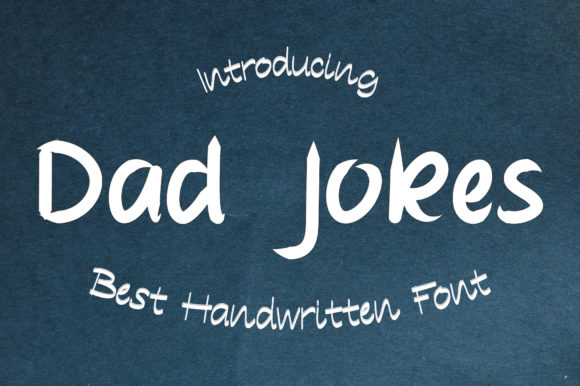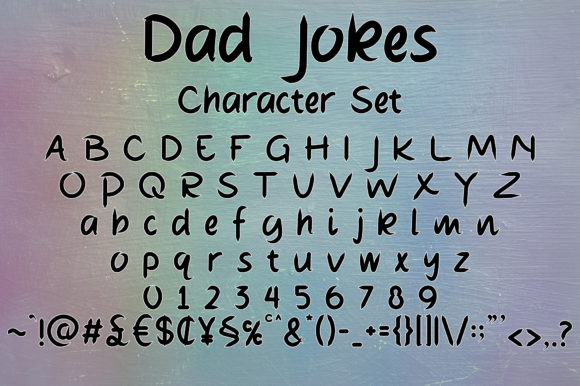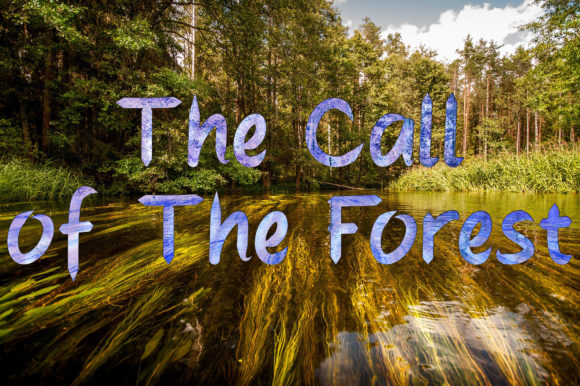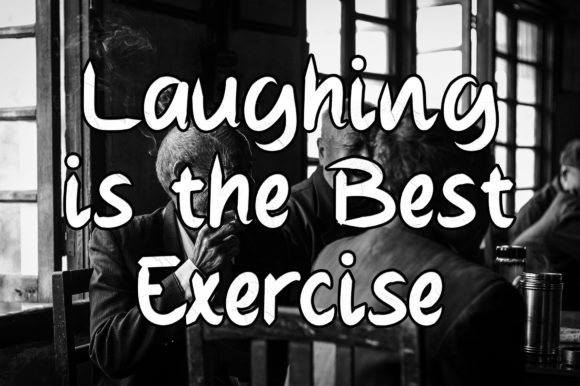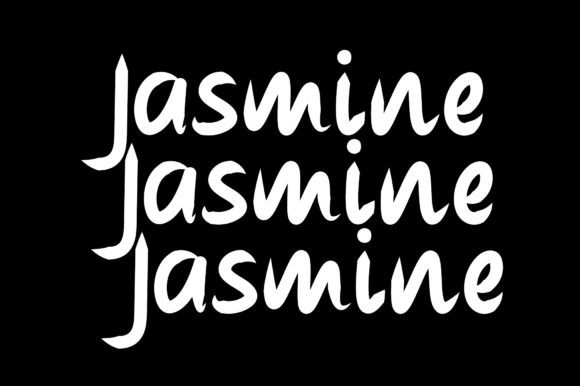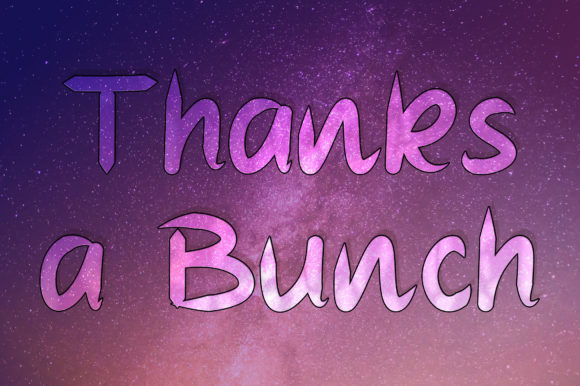
Dad Jokes Font
About Dad Jokes Font
Dad Jokes is a cool and chic handwritten font. No matter the topic, this font will be an incredibly asset to your fonts’ library, as it has the potential to elevate any creation.